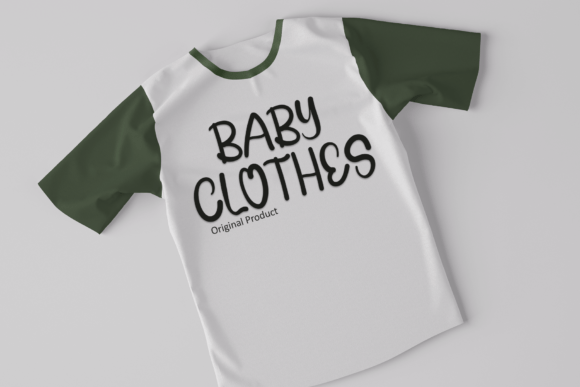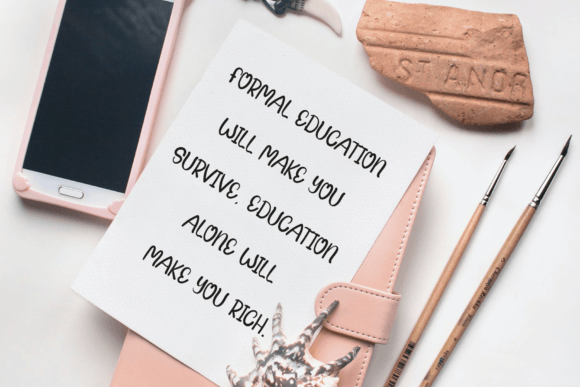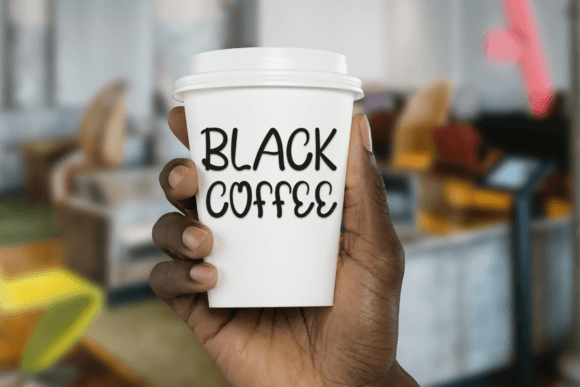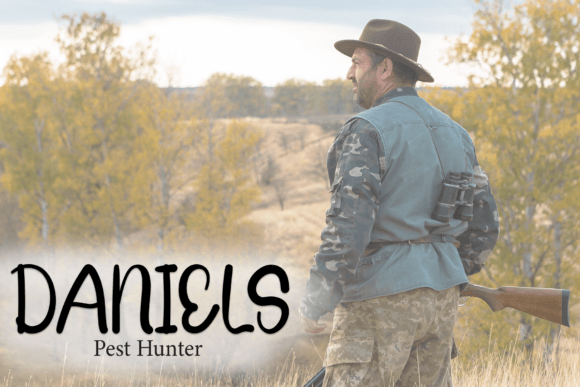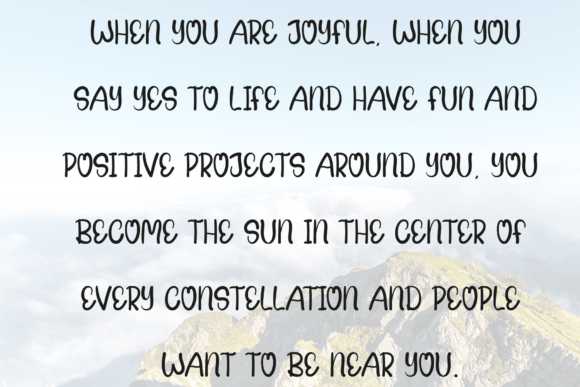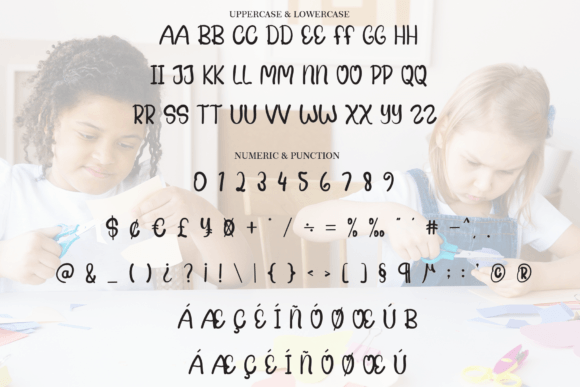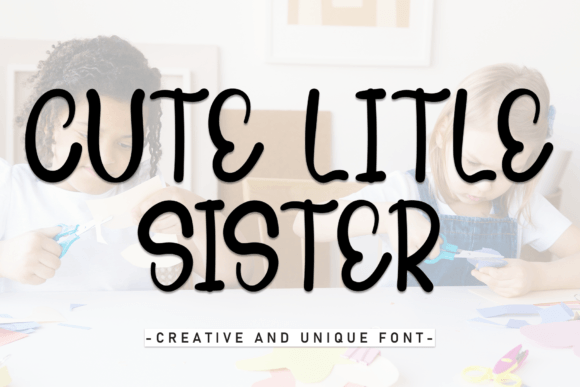
Cute Little Sister Font: Add a Touch of Whimsy to Your Designs
Are you looking for a font that can add a dash of sweetness and friendliness to your designs? Look no further than the Cute Little Sister font! This adorable handwritten font is perfect for creating wedding invitations, cards, and other designs that require a playful touch.
What is Cute Little Sister Font?
Cute Little Sister is a sweet and friendly handwritten font that is sure to capture the hearts of designers and crafters alike. Its fresh and cute style makes it an ideal choice for a wide range of design projects, from romantic wedding invitations to fun and playful greeting cards.
Key Features of Cute Little Sister Font
• Handwritten style: Cute Little Sister font boasts a beautiful handwritten style that is both elegant and playful.
• Sweet and friendly: The font’s sweet and friendly tone makes it perfect for designs that require a personal touch.
• Fresh and cute: The font’s fresh and cute style ensures that your designs will stand out from the crowd.
• Versatile: Cute Little Sister font can be used for a wide range of design projects, from wedding invitations to greeting cards, and more.
Uses for Cute Little Sister Font
Cute Little Sister font is an incredibly versatile font that can be used for a variety of design projects. Here are some ideas to get you started:
• Wedding invitations: Add a touch of romance and whimsy to your wedding invitations with Cute Little Sister font.
• Greeting cards: Create fun and playful greeting cards for birthdays, holidays, and other special occasions.
• Social media graphics: Use Cute Little Sister font to create eye-catching social media graphics that are sure to grab attention.
• Branding: Add a personal touch to your brand with Cute Little Sister font, perfect for businesses that want to convey a friendly and approachable tone.
Why Choose Cute Little Sister Font?
With so many fonts to choose from, why should you choose Cute Little Sister font? Here are just a few reasons:
• Unique style: Cute Little Sister font boasts a unique and distinctive style that is sure to set your designs apart.
• Easy to read: Despite its playful style, Cute Little Sister font is easy to read, making it perfect for designs that require a clear and concise message.
• Customizable: Cute Little Sister font can be customized to fit your design needs, ensuring that your final product is truly one-of-a-kind.
Tips for Using Cute Little Sister Font
Here are a few tips for getting the most out of Cute Little Sister font:
• Pair with other fonts: Cute Little Sister font pairs well with other fonts, so don’t be afraid to experiment with different combinations.
• Use for headings and titles: Cute Little Sister font is perfect for headings and titles, adding a touch of whimsy to your designs.
• Add embellishments: Consider adding embellishments, such as flowers or hearts, to enhance the playful style of Cute Little Sister font.
Cute Little Sister font is a sweet and friendly handwritten font that is sure to add a touch of whimsy to your designs. With its fresh and cute style, versatility, and ease of use, it’s the perfect choice for designers and crafters alike. Whether you’re creating wedding invitations, greeting cards, or social media graphics, Cute Little Sister font is sure to make your designs stand out from the crowd.